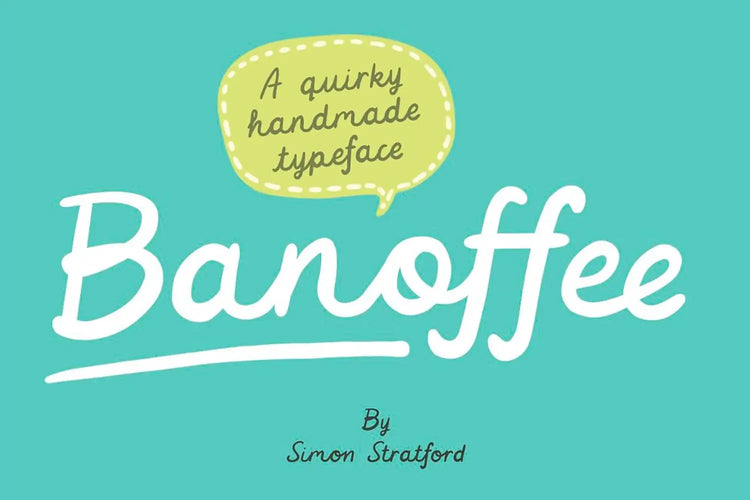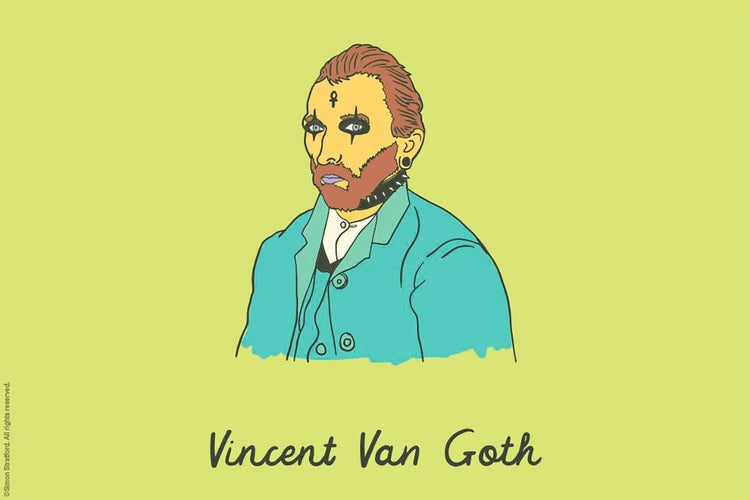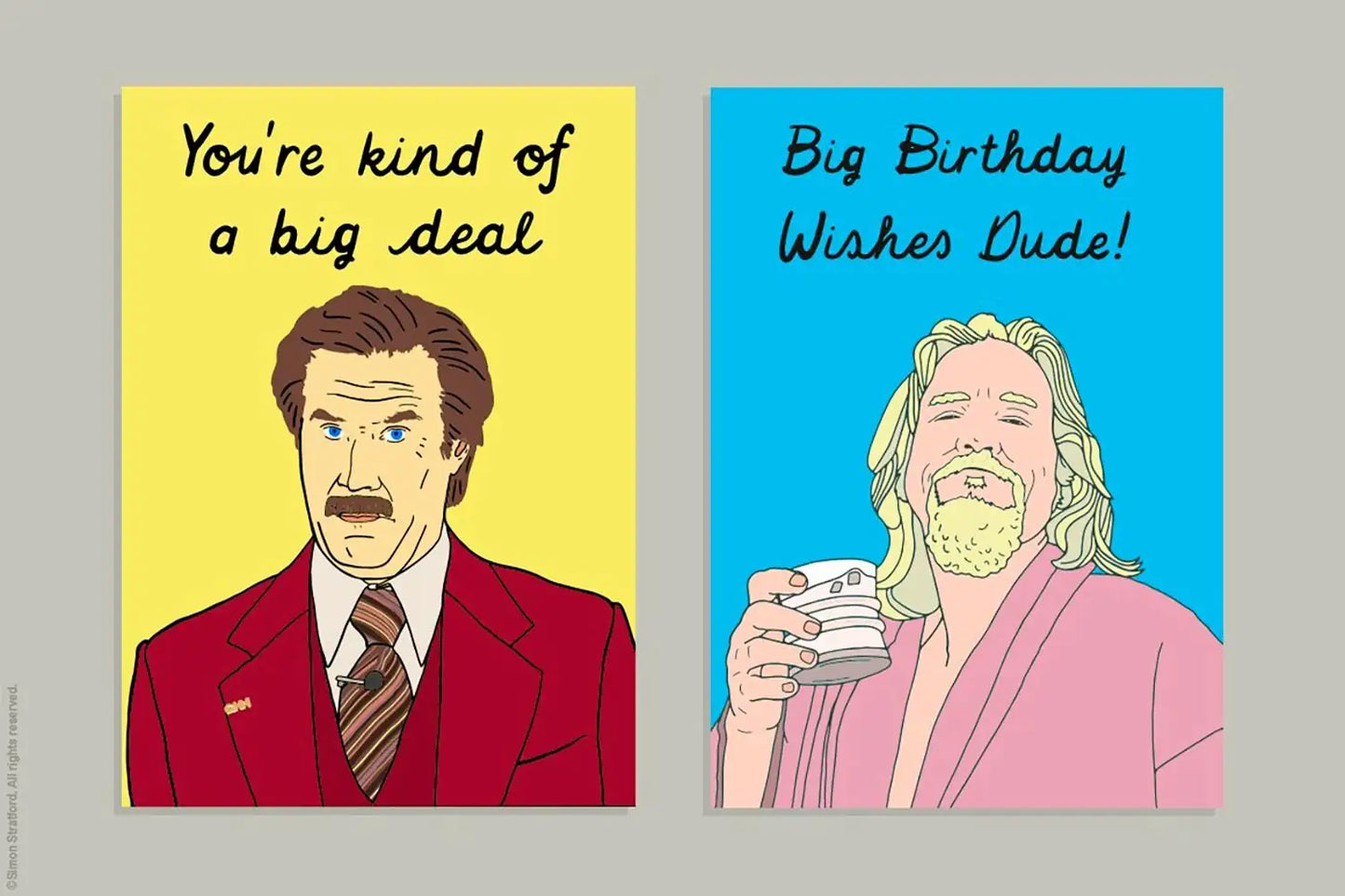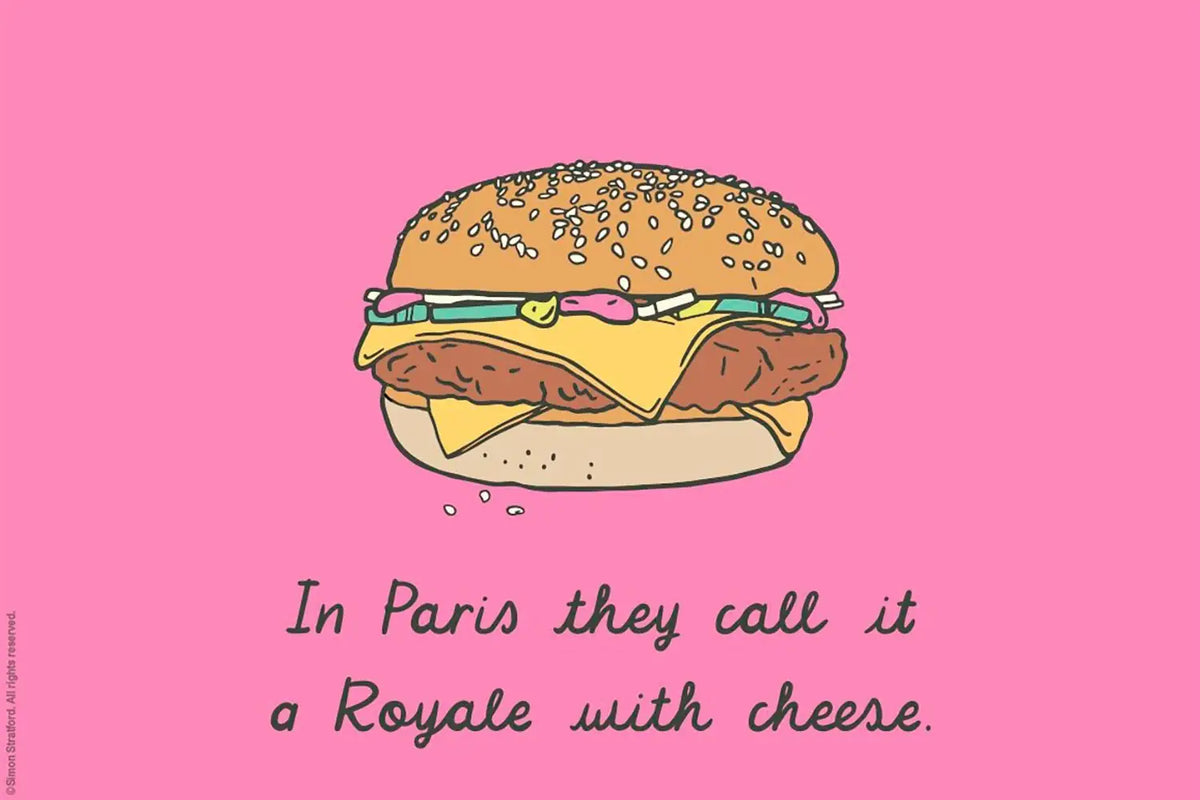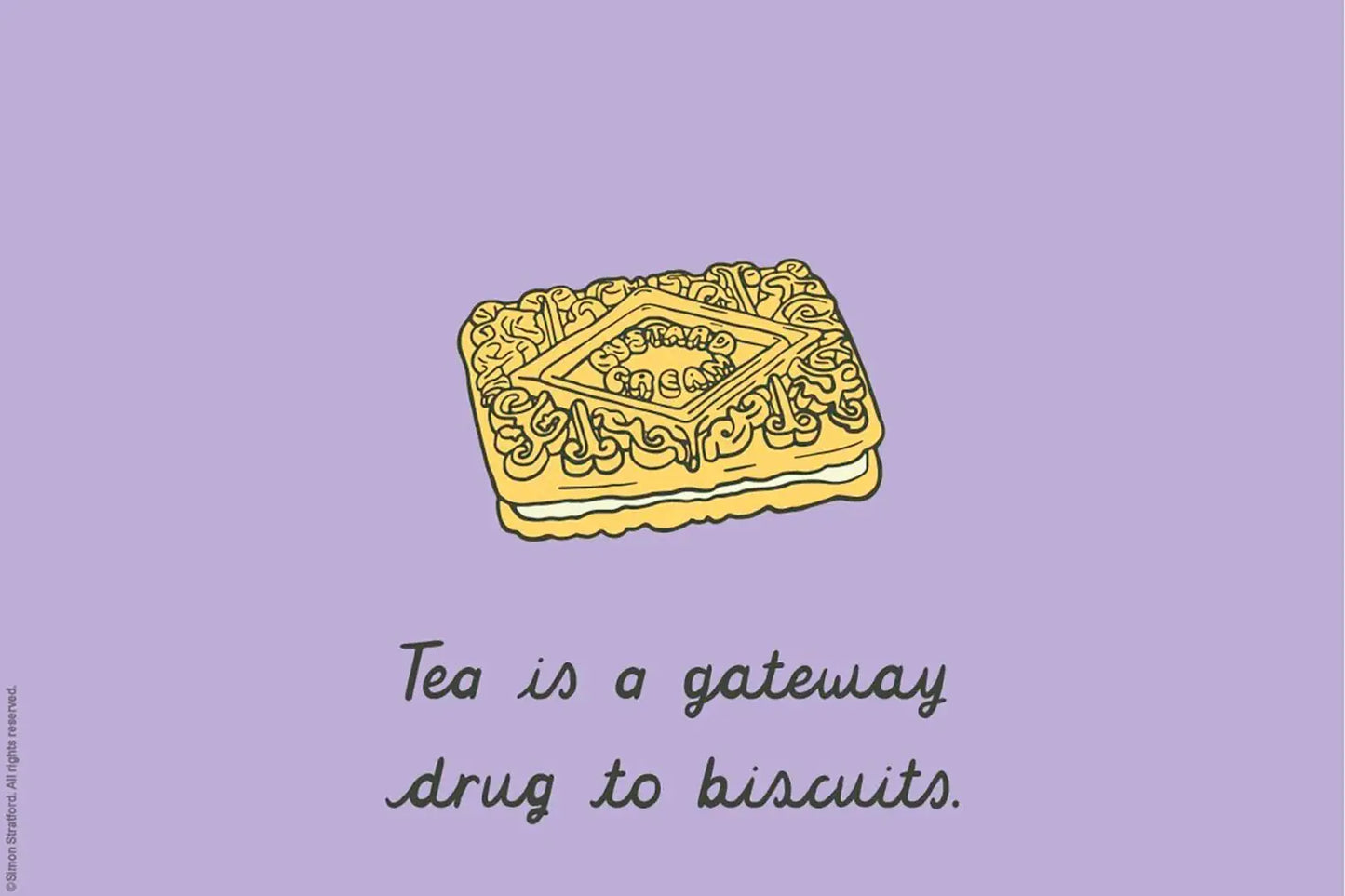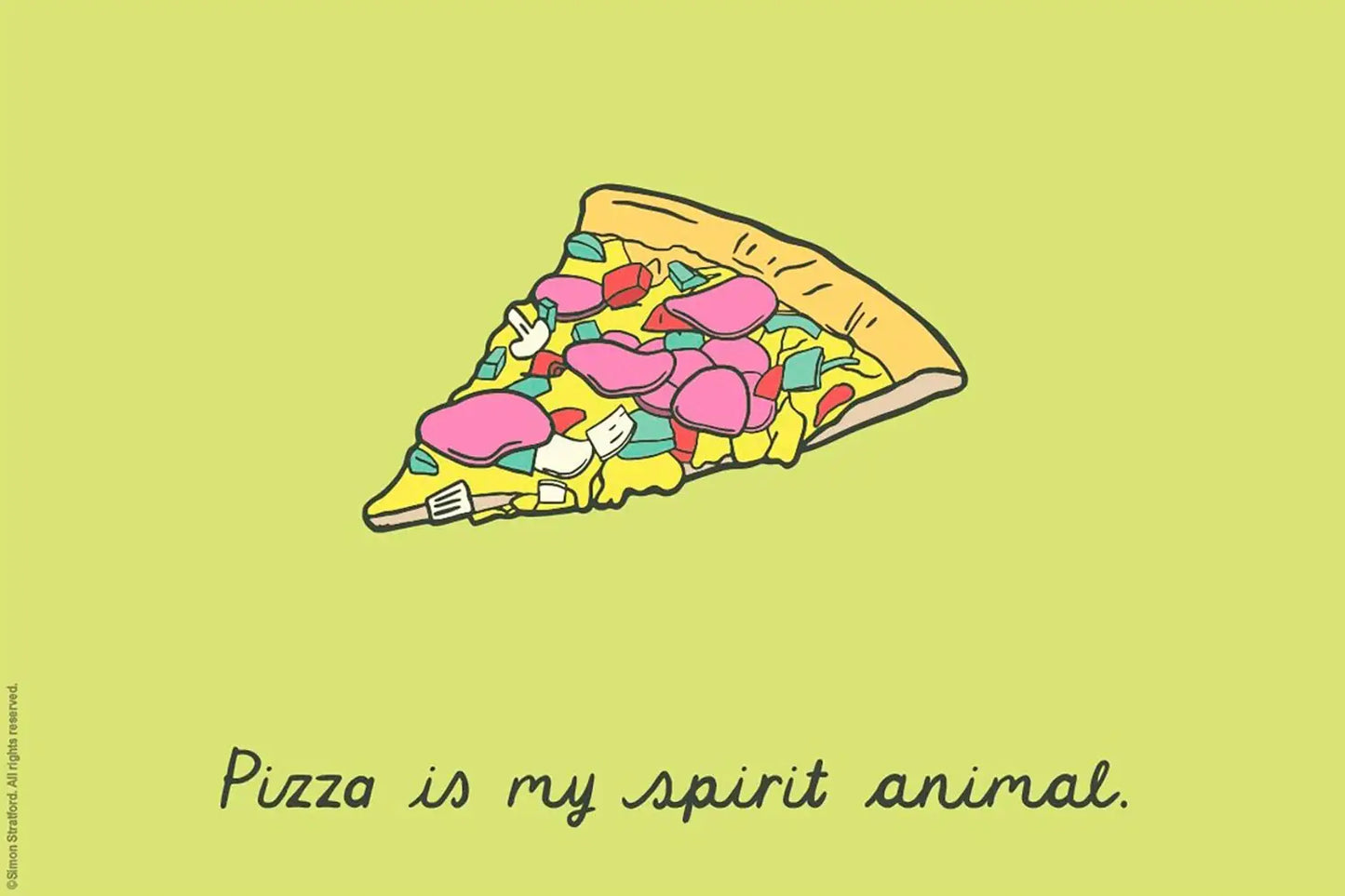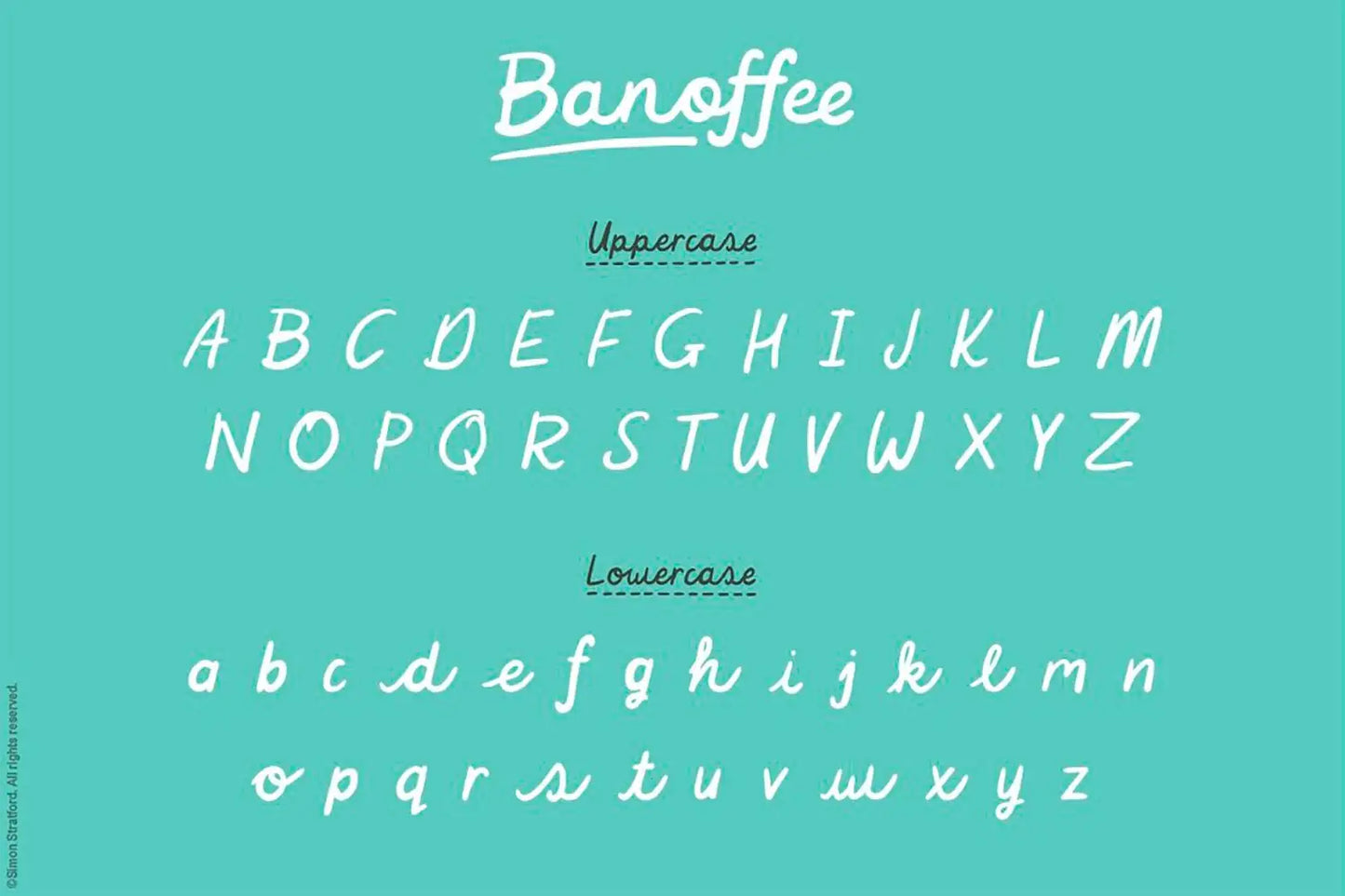
Banoffee — Playful Handwritten Script Font
About Banoffee
Meet Banoffee – the font that's as kooky as it is delicious. A lovely little handwriting font that's like having your handwritten notes, right at your fingertips—but better.
Banoffee font usage
Whether you're whipping up greeting cards, crafting recipe books, or designing eye-catching posters, Banoffee adds that personal handmade touch to your designs.
But that's not all! This font isn't just sweet letters and characters; it also comes with a sprinkle of decorative ornaments to jazz up your designs.
You'll find everything you need, from upper and lowercase glyphs to punctuation, symbols, and numbers.
Plus, there are those charming initial and terminal forms that give it that extra 'yum' factor.
If the Banoffee font were a celebrity
If the Banoffee font were a celebrity, it would be the sweet and charming Zooey Deschanel. Just as Zooey Deschanel is known for her quirky and endearing roles in film and television, Banoffee font carries a playful and whimsical vibe in the world of typography.